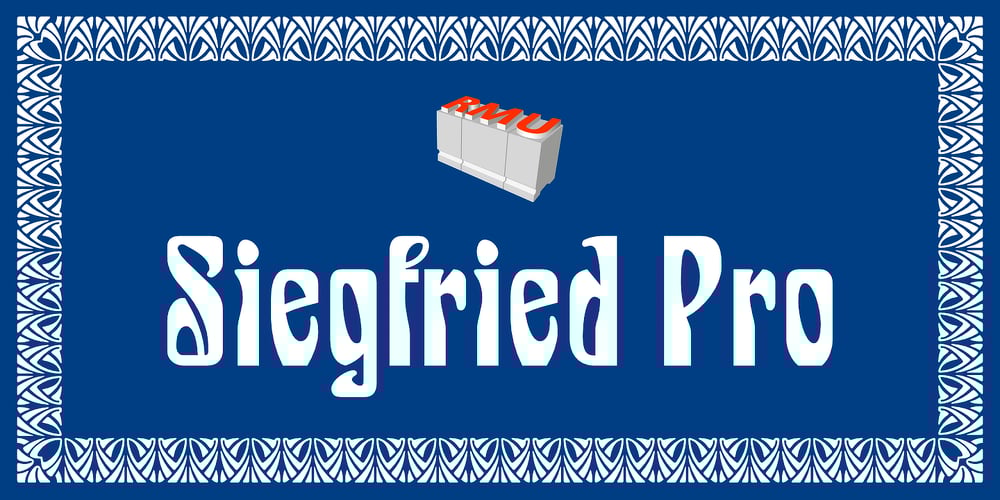
RMU Siegfried Pro Font Family was designed by Ralph M. Unger, Hans Karl Gustav Möhring and published by RMU. RMU Siegfried Pro contains 1 styles and family package options. RMU Siegfried Pro is another breathtaking Art Nouveau font from the fin-de-siècle period which underlines your stylish projects in a remarkable way. The font was carefully redesigned, some oddieties abolished, and the font was extended to make it usable for Central European languages too. Three embedded graphic elements let you make a fitting frame. The letter k has an alternative form, so look for all OT features in this font.